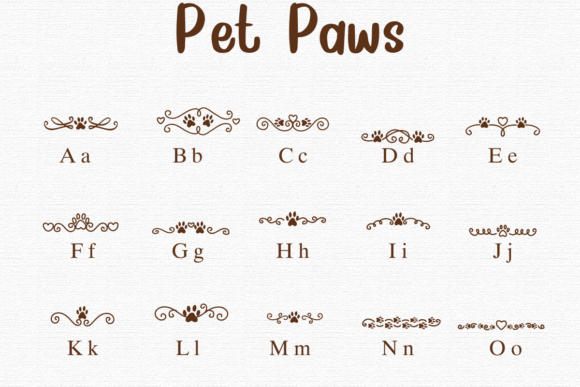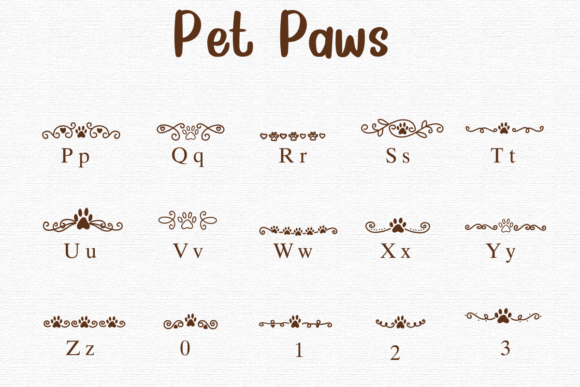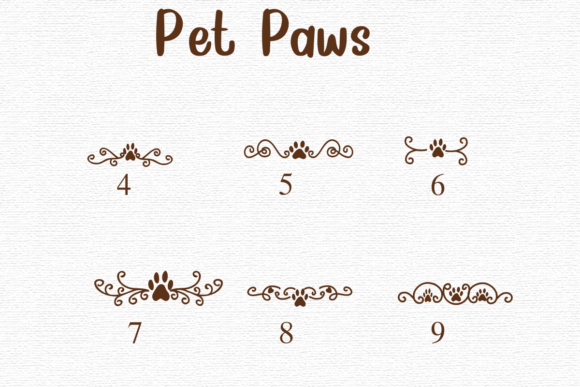
Pet Paws Font
Pet Paws is a fun and playful dingbat font featuring various paw print designs. It’s perfect for adding a touch of cuteness to your projects, whether it’s for pet-related materials, children’s items, or simply to add a bit of whimsy. Each character in the font represents a different paw print, making it easy to create adorable and unique designs.